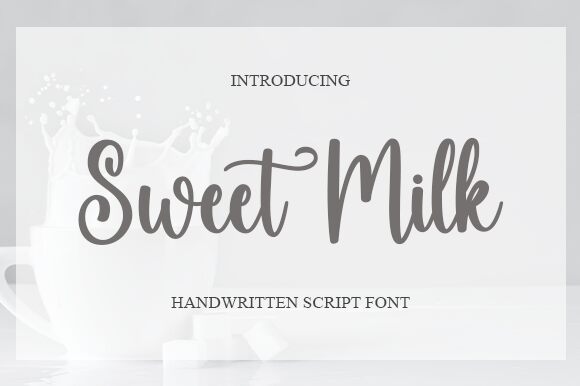
Sweetmilk
Sweet Milk is a narrow, handwritten script font designed by Aldi Raya Pradipta. It's perfect for creating invitations, logos, and other projects with an elegant yet playful look.